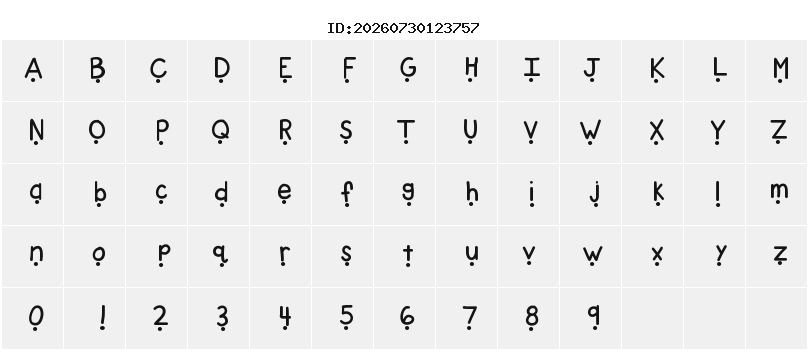
• Font Name: KBEasyReader
About KBEasyReader.ttf
KBEasyReader.ttf is a modern, elegant sans-serif font designed for ultimate readability and visual harmony. Perfect for branding, headlines, web design, and print materials.